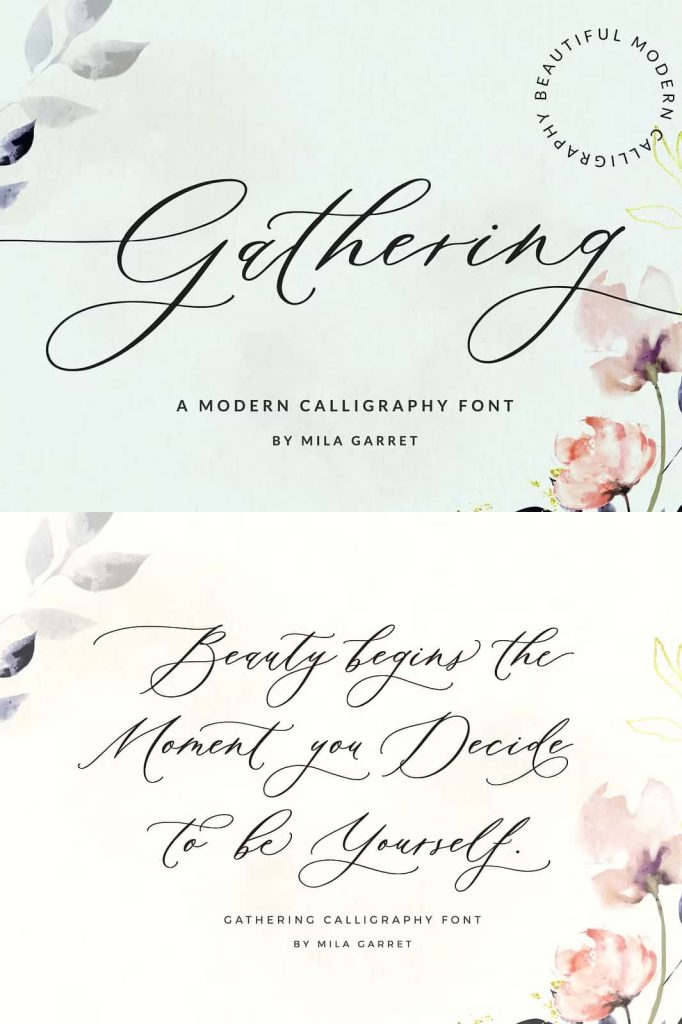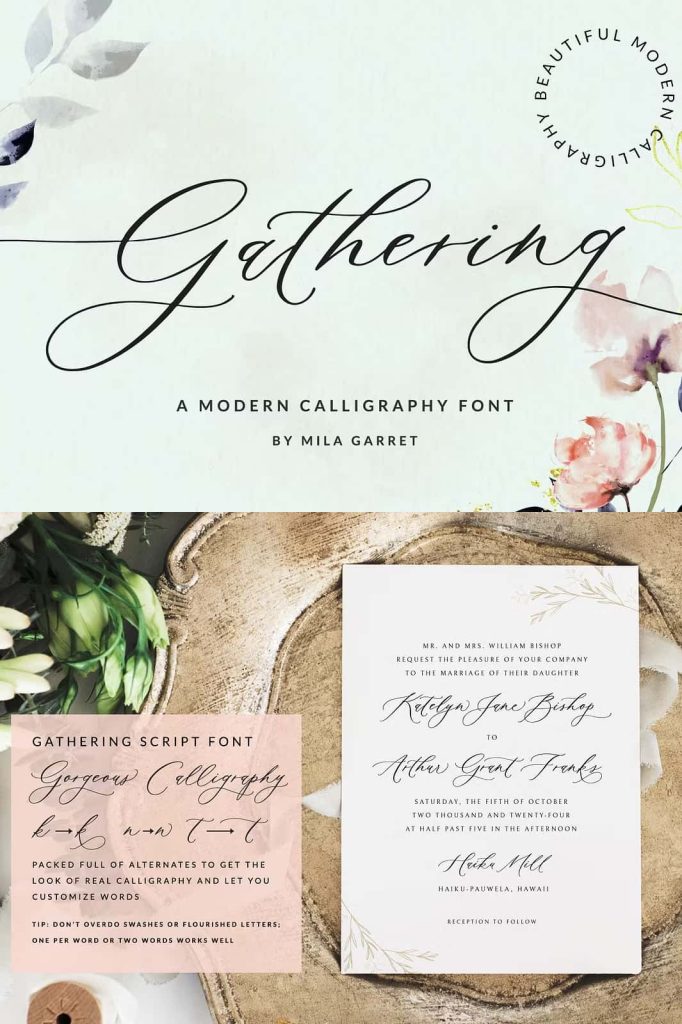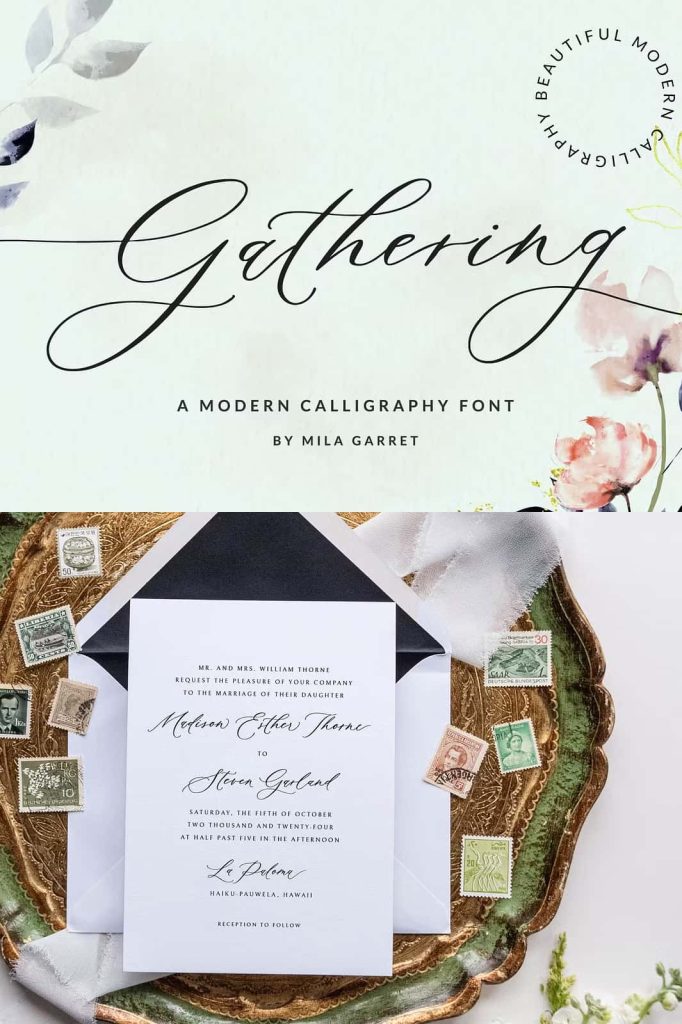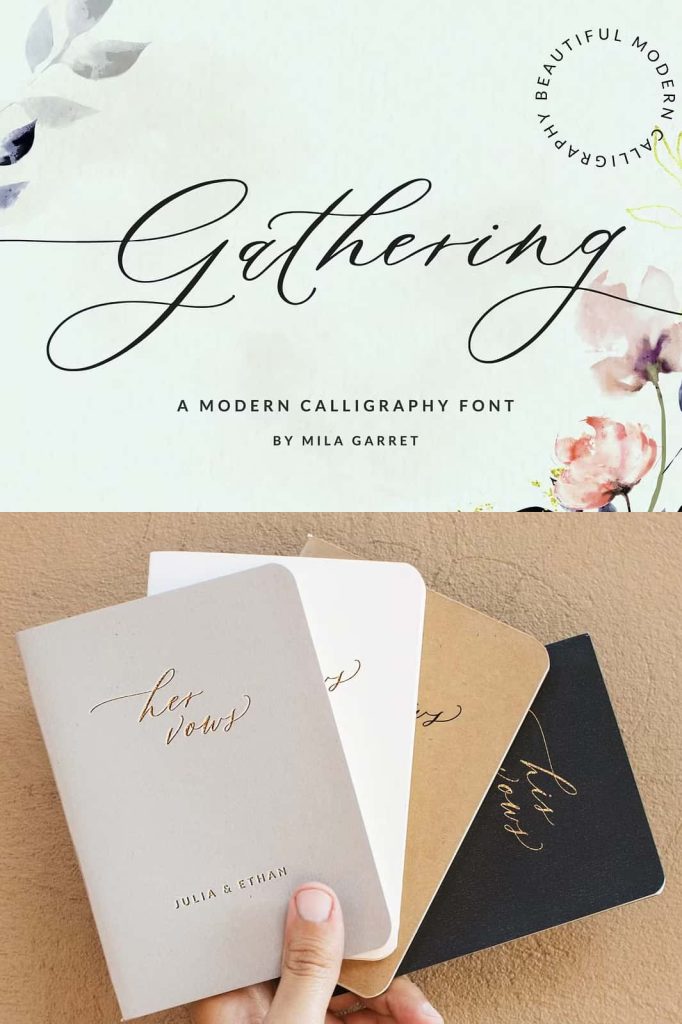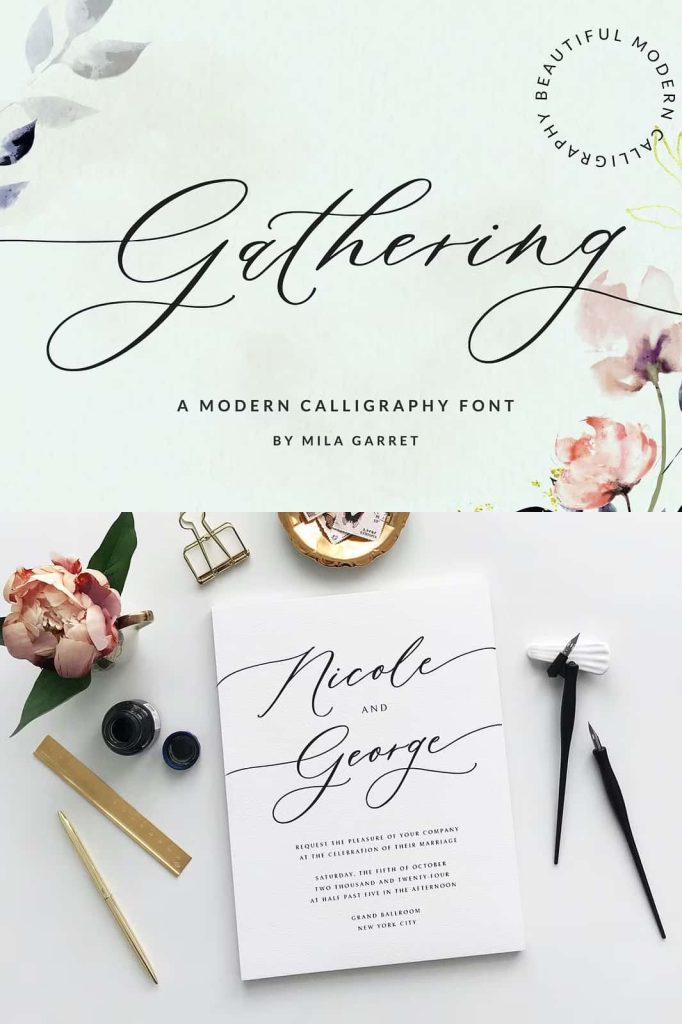
Gathering Calligraphy Wedding Script
Meet Gathering Script, a modern wedding calligraphy font that lends a sophisticated, handwritten look to wedding stationery